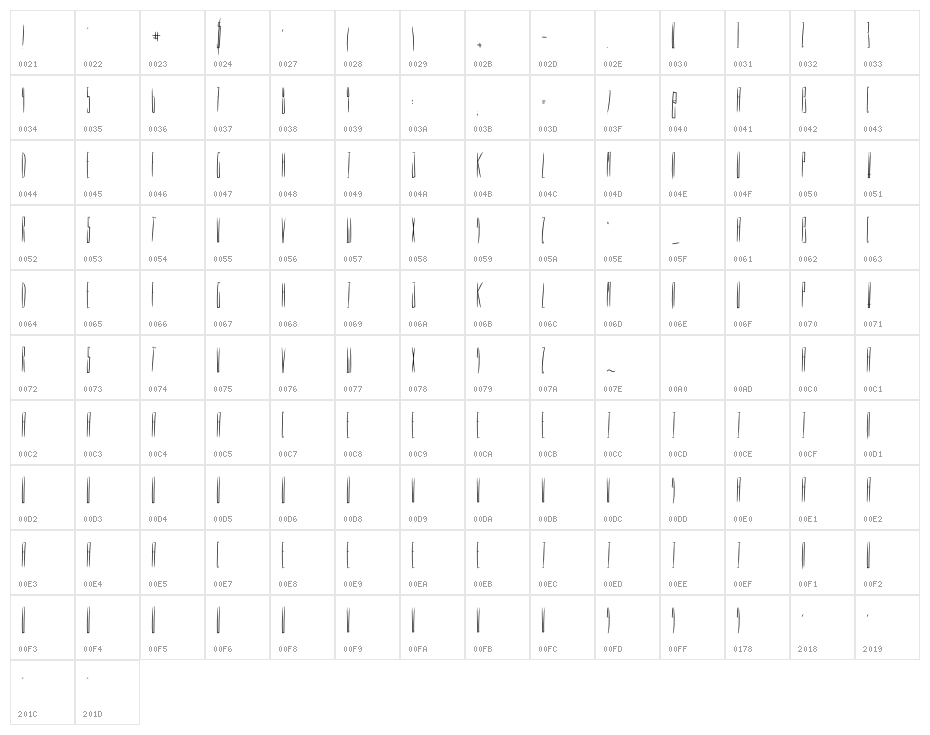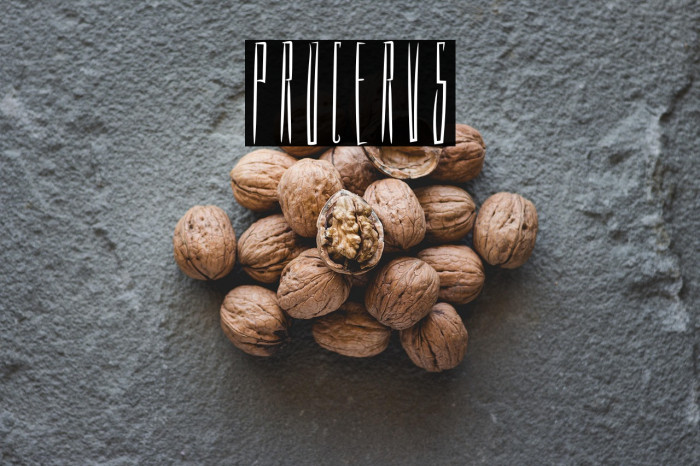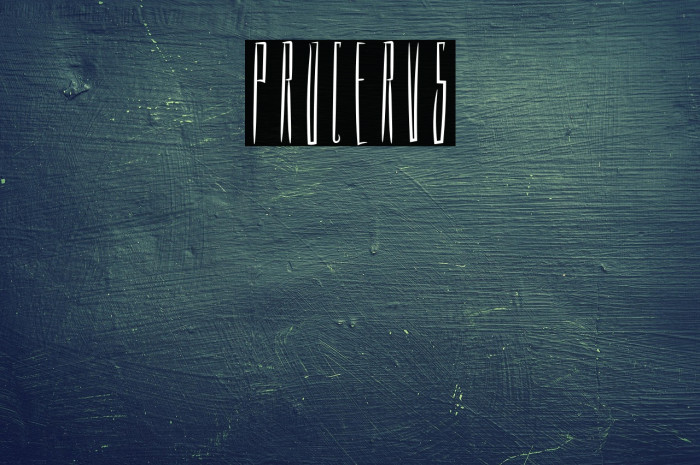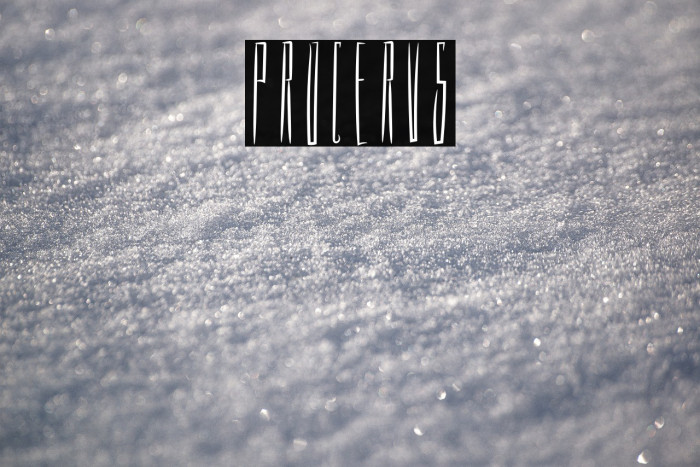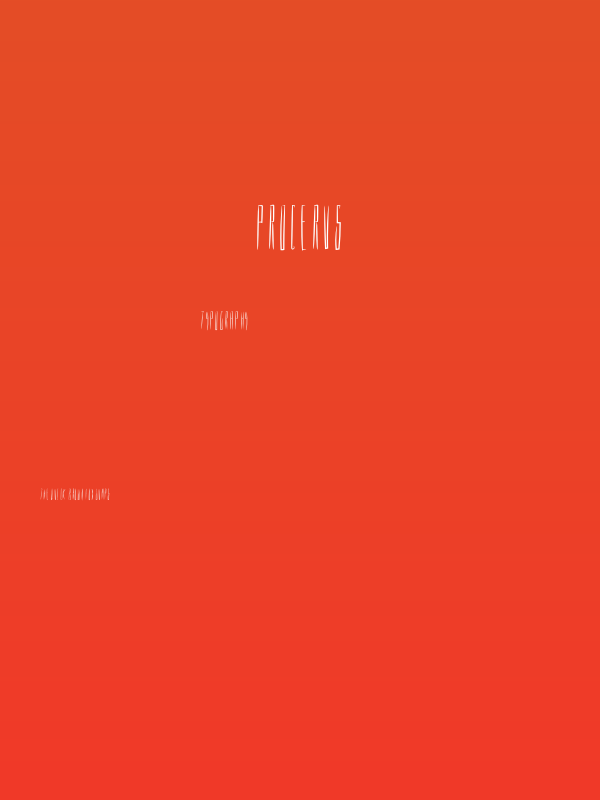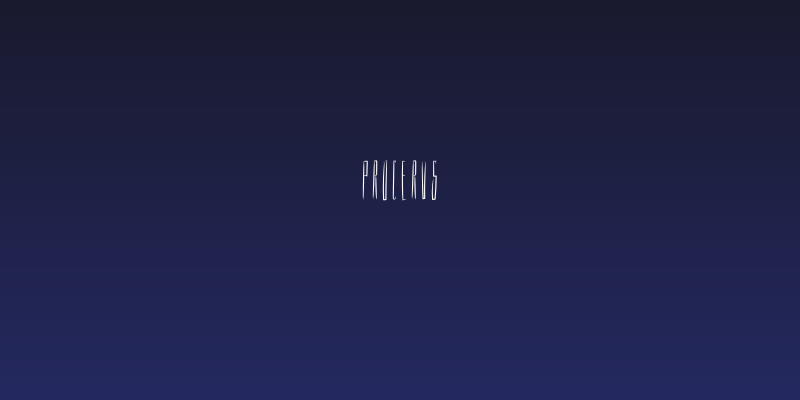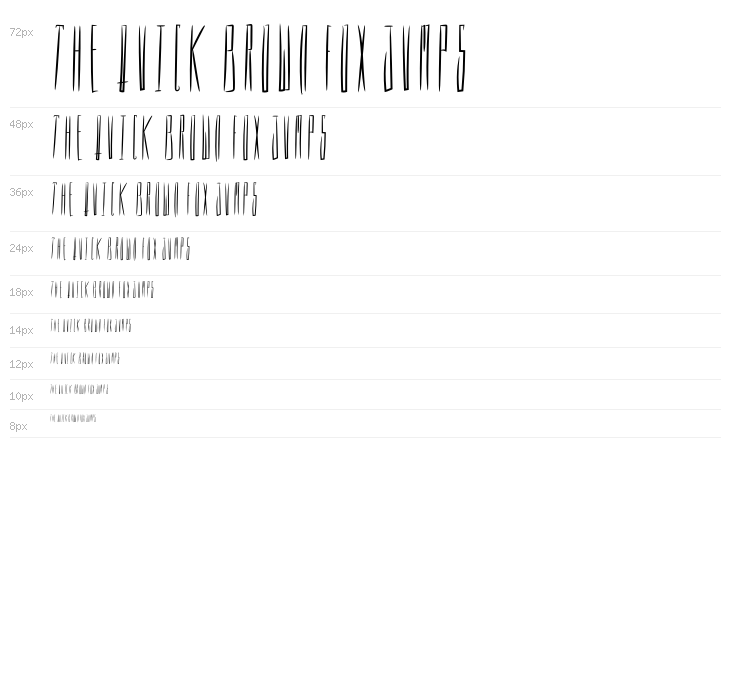
PROCERUS Font
PROCERUS Description
This font features an elongated and narrow design, characterized by its tall, slender letters with sharp, pointed serifs. The vertical emphasis is prominent, giving it a striking and elegant appearance. The uppercase and lowercase letters maintain a consistent height, creating a uniform look. The numbers follow the same elongated style, ensuring cohesion across all characters. The special characters are uniquely designed, maintaining the overall aesthetic of the font. This font's distinctive style makes it suitable for creative and artistic projects.
| Proposed Projects | Ideal for artistic posters, fashion branding, and editorial design where a unique and elegant typeface is desired. |